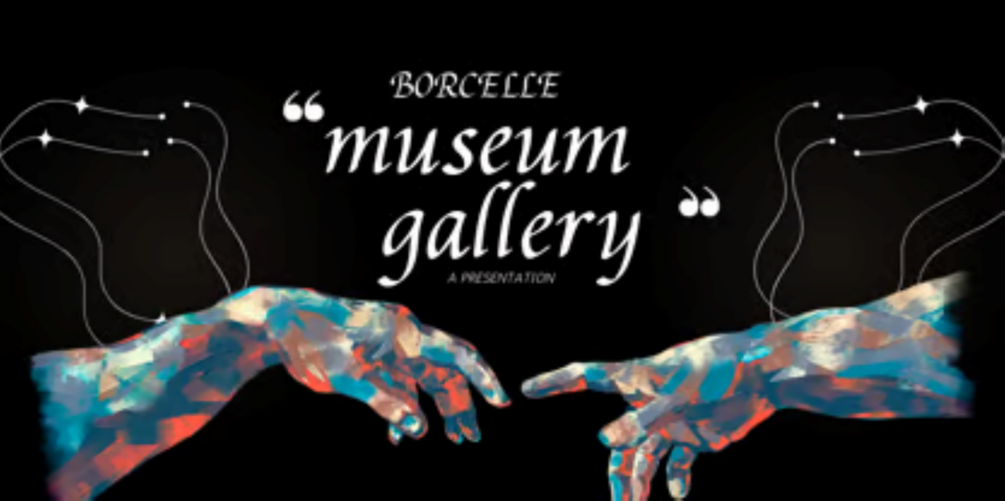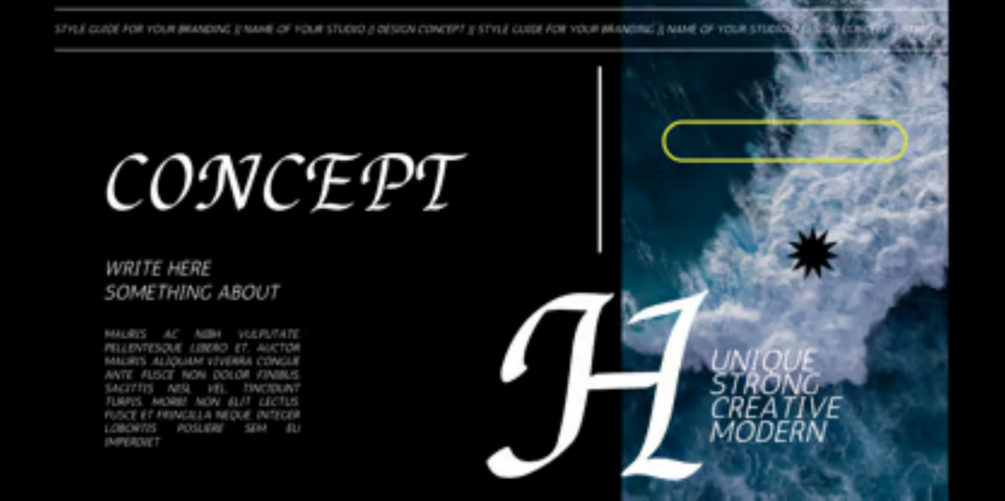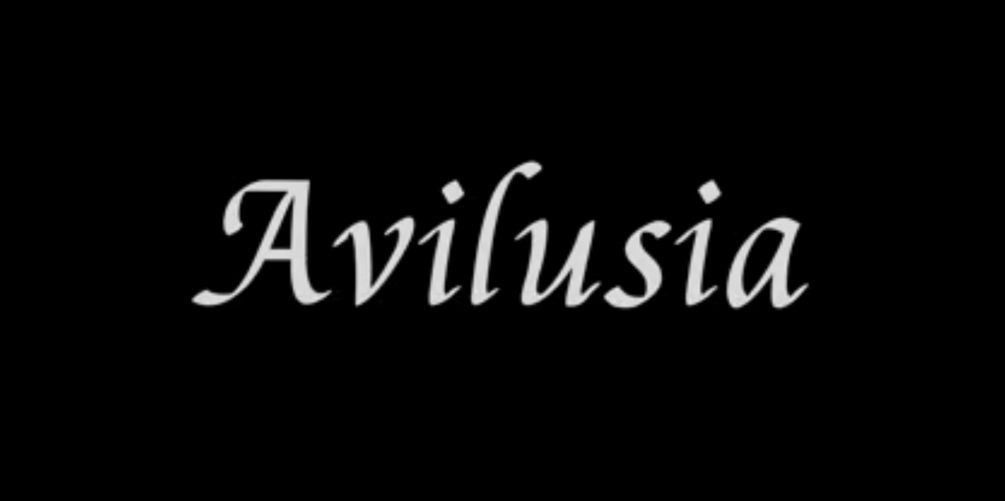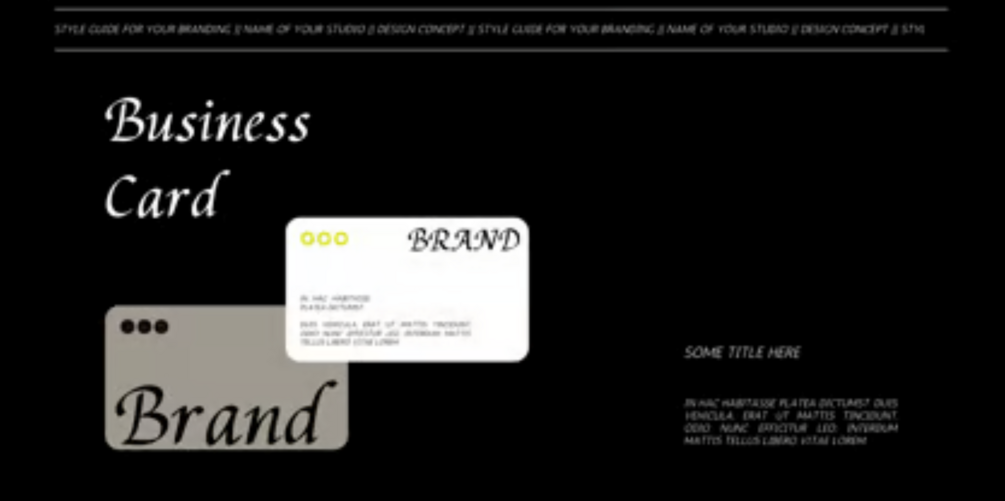
AVILUSIA
Introducing “Avilusia”, a captivating semi-gothic typeface that seamlessly blends tradition with a modern twist. With its unique character and versatile design, “Avilusia” is poised to make a bold statement in a variety of design projects.
The design concept behind “Avilusia” revolves around merging the timeless charm of semi-gothic typography with contemporary design sensibilities. The goal was to create a typeface that reflects the rich historical roots of gothic letterforms while infusing it with a fresh and modern edge. “Avilusia” aims to be a versatile tool that empowers designers to explore new creative territories while honoring the legacy of classic typography.
While “Avilusia” draws inspiration from the semi-gothic tradition, it is not based on any specific historical design. Instead, it pays homage to the stylistic traits of semi-gothic typefaces while embracing the demands of contemporary aesthetics. This approach results in a typeface that is both captivating and adaptable, suitable for a wide range of design applications.
“Avilusia” is a captivating semi-gothic typeface that seamlessly blends tradition with a modern twist. Its distinctive design, versatile nature, and extensive character set make it an excellent choice for creating visually engaging designs. Whether you're working on branding, editorial layouts, or display graphics, “Avilusia”'s unconventional elegance will leave a lasting impression on your projects.